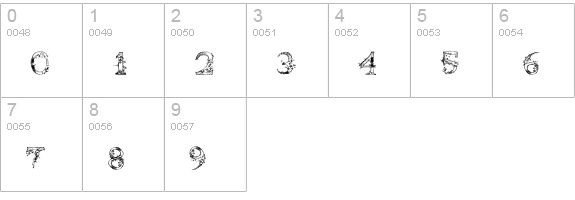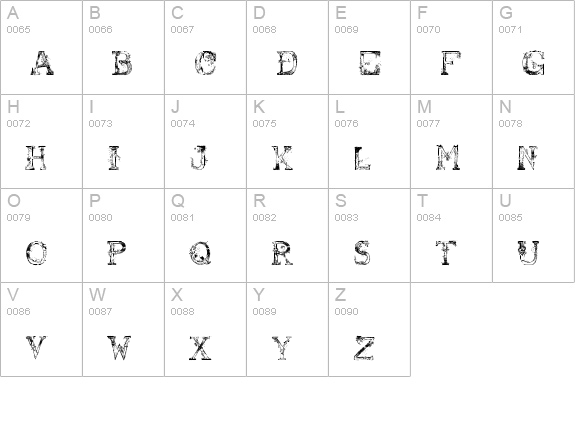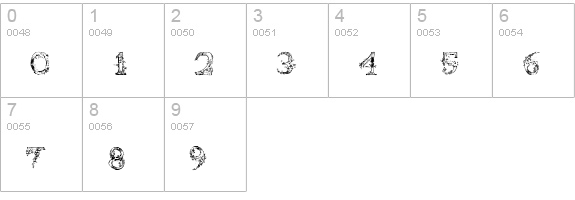
Abusive Pencil Font Details
Abusive Pencil font is a bold and edgy display typeface that exudes a rebellious and expressive spirit. The sharp, jagged lines of each letter evoke a sense of raw energy and attitude, making it perfect for projects that require a touch of defiance and boldness. This unique font is versatile and can be used for a variety of design projects, from posters and flyers to social media graphics and branding materials. Its distinctive style will make your text stand out and grab attention, leaving a lasting impression on your audience. Best of all, Abusive Pencil font is available for free download at FontsMarket.com, allowing you to access this eye-catching typeface without any cost. Don't miss out on the opportunity to add a touch of rebellion to your designs with Abusive Pencil font.